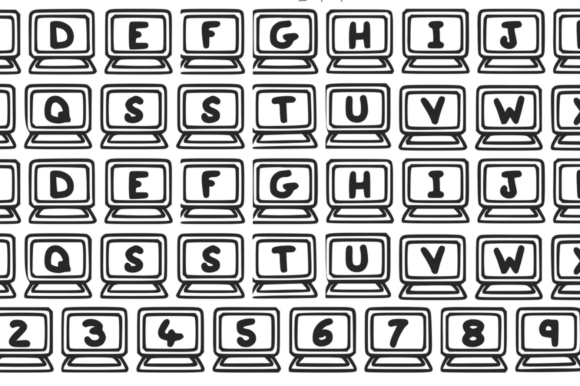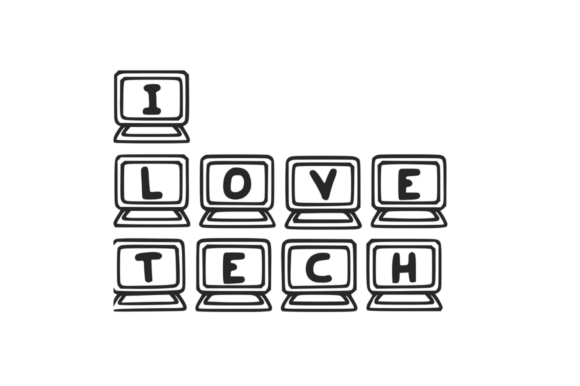
Introducing Fun Devices Laptop Font: Elevate Your Designs with a Playful Touch
Are you tired of using the same old fonts in your designs? Do you want to add a playful touch to your creations? Look no further than the Fun Devices Laptop Font! This fun decorative font features a range of devices, tablets, desktops, and laptops to choose from, making it an incredible asset to your font library.
What is Fun Devices Laptop Font?
Fun Devices Laptop Font is a unique and creative font that showcases a variety of devices, including laptops, tablets, and desktops. This font is perfect for designers, crafters, and anyone looking to add a fun and quirky element to their designs. With its playful and eye-catching characters, Fun Devices Laptop Font is sure to elevate any creation.
Key Features of Fun Devices Laptop Font
- Range of devices: The font features a range of devices, including laptops, tablets, desktops, and more.
- Playful and decorative: The font has a playful and decorative style, making it perfect for designs that require a fun touch.
- Part of a family of Fun Devices: Fun Devices Laptop Font is part of a family of fonts that feature fun and playful designs.
- Extra 2 devices: This font includes an extra 2 devices, making it even more versatile.
Benefits of Using Fun Devices Laptop Font
Using Fun Devices Laptop Font can bring numerous benefits to your designs. Here are a few:
- Adds a playful touch: The font adds a playful and fun element to your designs, making them more engaging and eye-catching.
- Increases creativity: The unique and creative design of the font can inspire creativity and help you think outside the box.
- Versatile: The font can be used in a variety of designs, from digital graphics to print materials.
- Easy to read: Despite its playful design, the font is easy to read and can be used for both headings and body text.
Who Can Benefit from Fun Devices Laptop Font?
Fun Devices Laptop Font is perfect for a range of designers and crafters, including:
- Graphic designers: Graphic designers can use the font to create eye-catching graphics, logos, and branding materials.
- Digital artists: Digital artists can use the font to add a playful touch to their digital art and illustrations.
- Crafters: Crafters can use the font to create fun and unique designs for their craft projects, such as scrapbooking and card making.
- Web designers: Web designers can use the font to create engaging and interactive web pages.
Fun Devices Laptop Font is a fun and creative font that can add a playful touch to your designs. With its range of devices, playful design, and ease of use, this font is perfect for designers, crafters, and anyone looking to elevate their creations. Whether you’re a graphic designer, digital artist, crafter, or web designer, Fun Devices Laptop Font is an incredible asset to your font library.